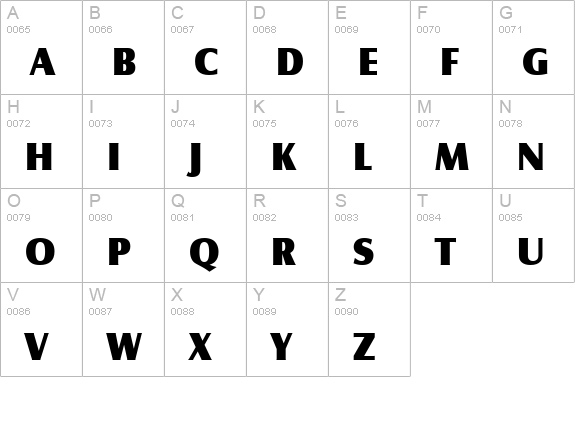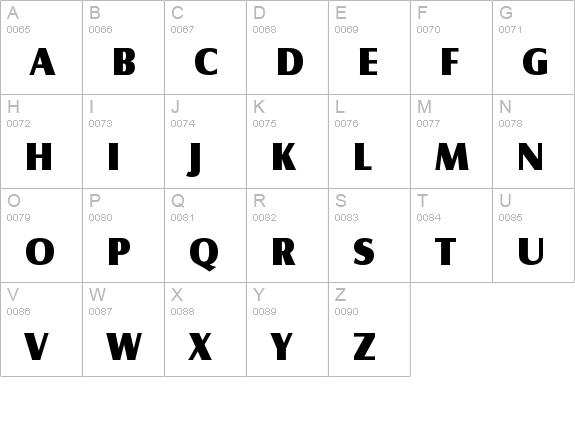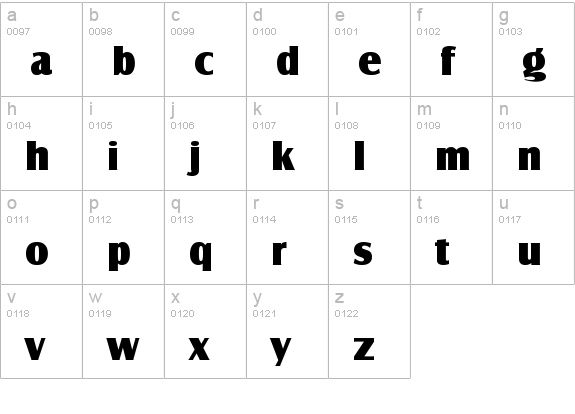
CastleTUlt font is a stunning and elegant typeface that exudes a sense of grandeur and sophistication. With its intricate design and intricate details, this font is perfect for adding a touch of royalty to your projects. The sweeping curves and sharp edges of CastleTUlt font create a captivating visual impact that will make your text stand out. What makes CastleTUlt font even more appealing is that it is completely free to download at FontsMarket.com. Whether you're working on a creative project, designing a logo, or crafting a stunning invitation, CastleTUlt font is the perfect choice to elevate your work to the next level. Don't miss out on this exquisite font that will bring a touch of elegance to your designs. Download CastleTUlt font today and let your creativity soar.